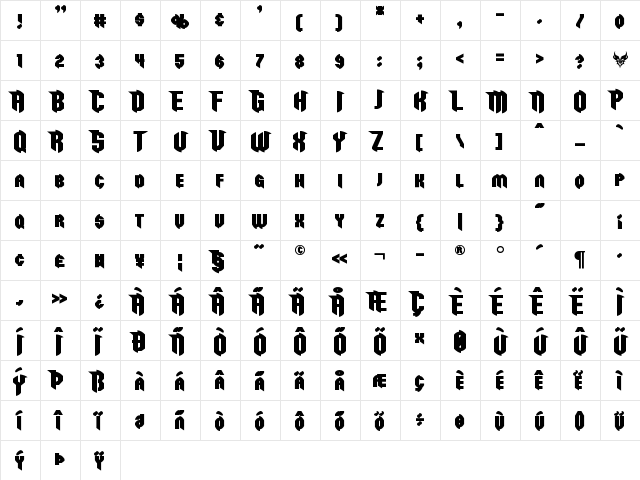
Razorclaw Bold Free Font
Razorclaw Bold
Foundry: Pixel Sagas
Designer: Neale Davidson
Design Context for Razorclaw
Razorclaw is a composed and adaptable typeface that performs quietly and consistently across a wide range of design contexts. Its bold stroke weight gives it real presence on the page.